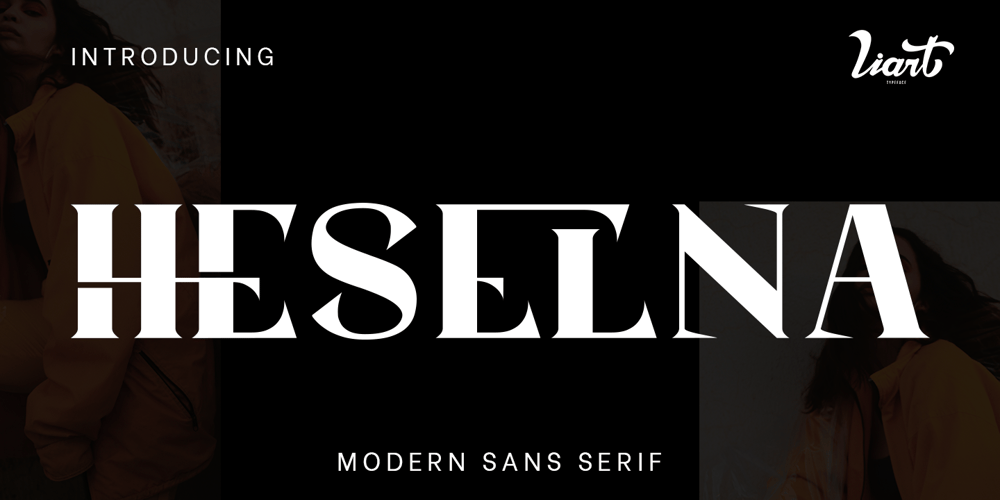
Heselna Font Family was designed by Ali Sifak Muftari and published by Liartgraphic. Heselna contains 1 styles and family package options. Hello gaes!How are you guys doing ? i’m sure that’s nice!Meet our newest product, we call this product Heselna font.Heselnas font are serif typeface fontWhit a uniqe touch and assertiveHeselna font is very nice to use on:fashion magazine, logos, ,and photography, landing page, fliyer,What’s includes- mutilngual support- alternate- ligatureThank you, salutationsAli Sifak Muftari